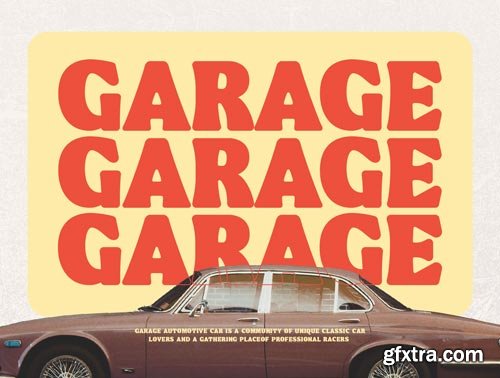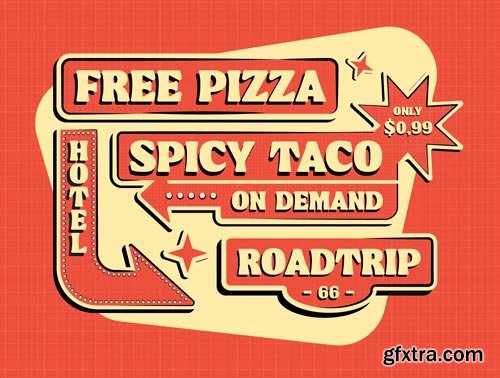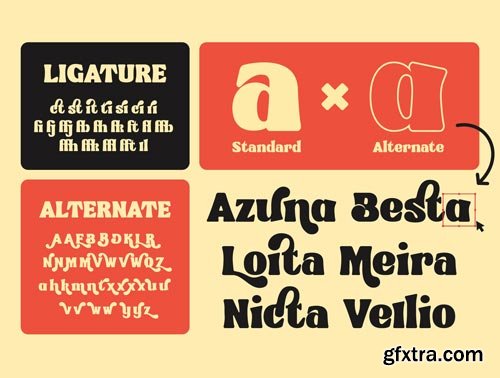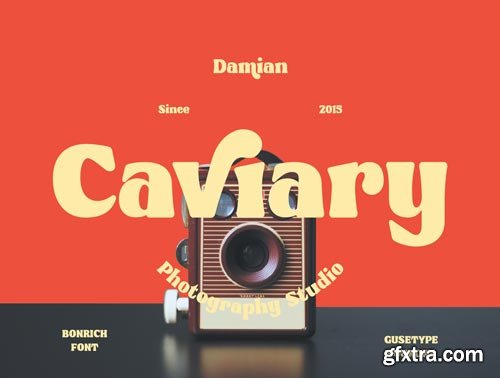
xBonrich is a display font made with thick lines characteristics and rounded edge at each glyphs. This font suitable for retro & vintage style design. Bonrich can be used in a various of designs such as headlines, posters, logotype and many more.